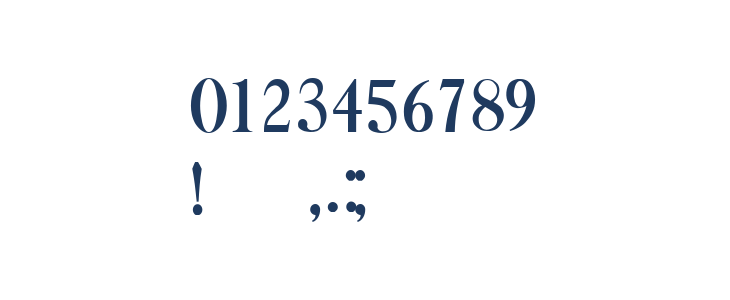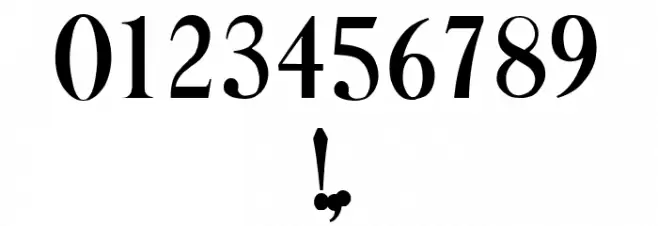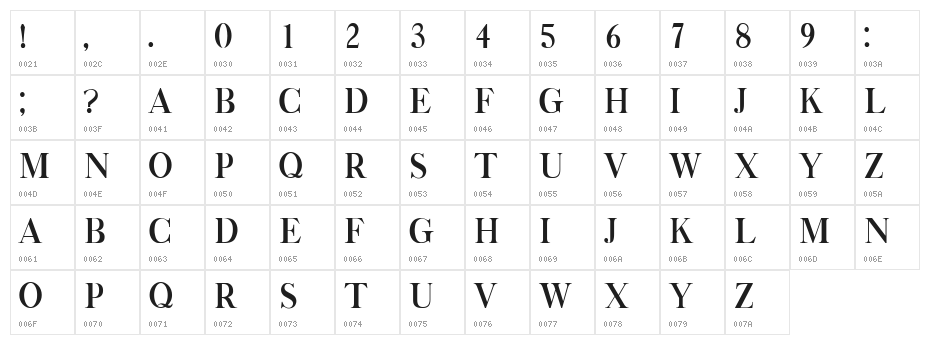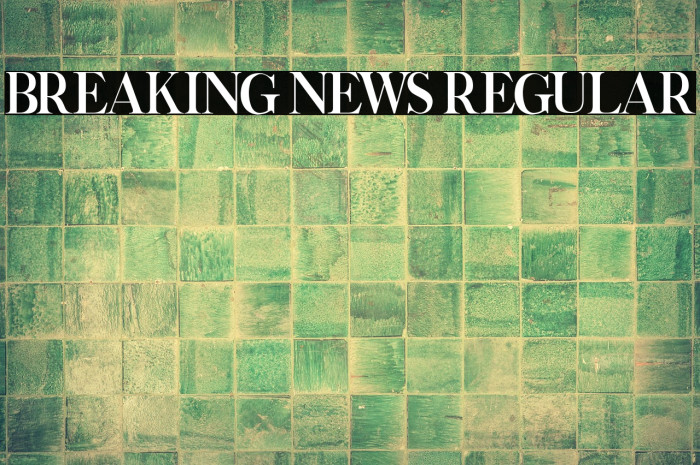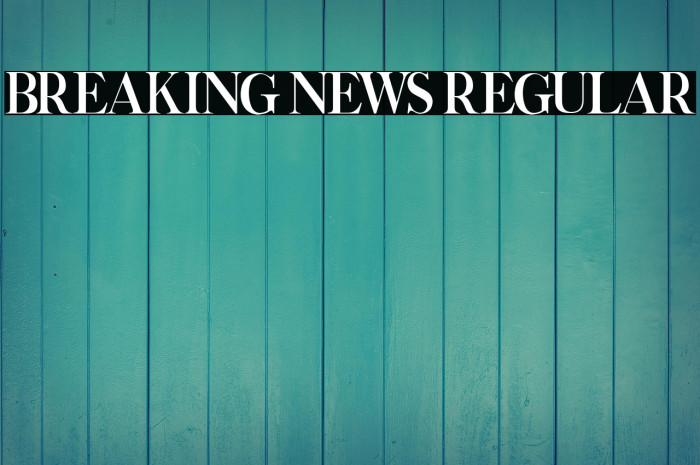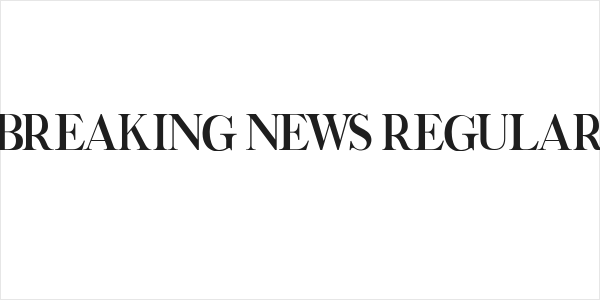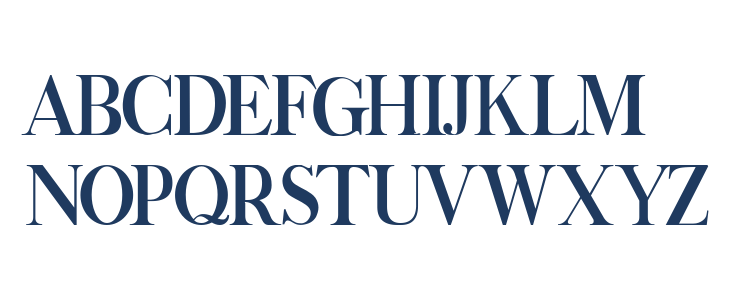
Breaking News Regular Font
Breaking News Regular Description
This font features a classic serif style with high contrast between thick and thin strokes, giving it a bold and authoritative appearance. The serifs are sharp and pronounced, adding a touch of elegance and tradition. The uppercase letters are tall and commanding, while the lowercase letters maintain a consistent style with slightly rounded edges. The numerals are clear and distinct, ensuring readability. Special characters are designed with the same attention to detail, making this font versatile for various applications.
| Proposed Projects | Ideal for newspaper headlines, formal invitations, book covers, and branding materials that require a traditional yet impactful look. |